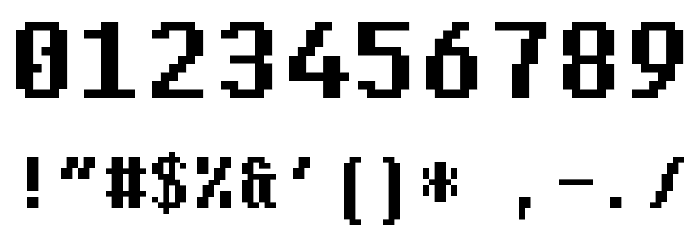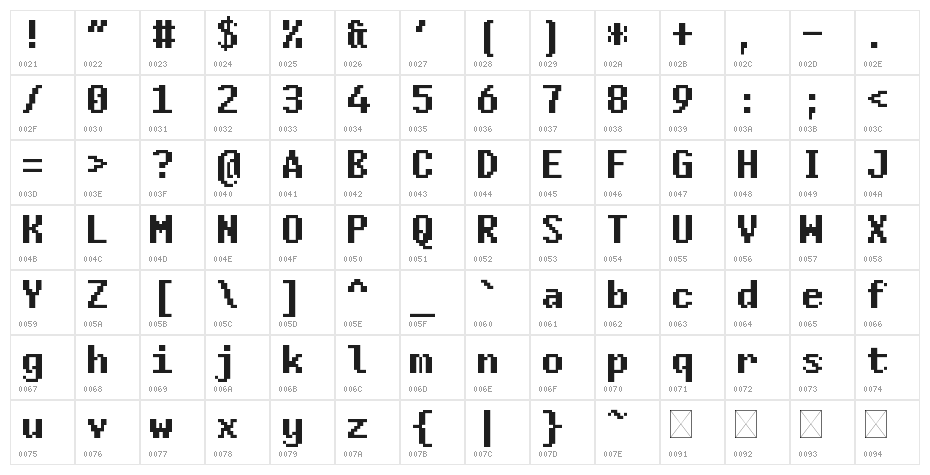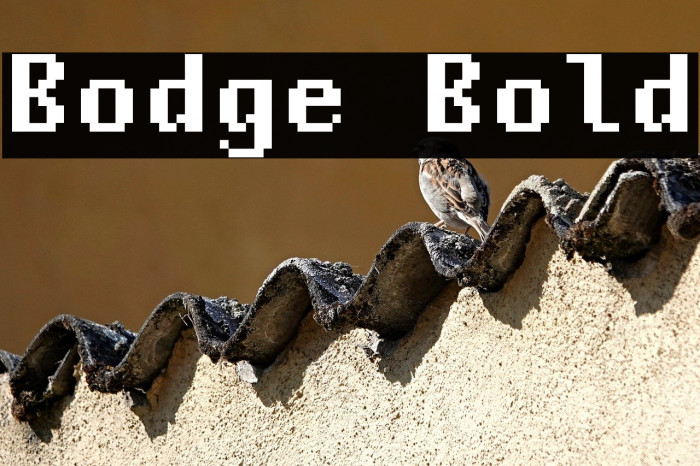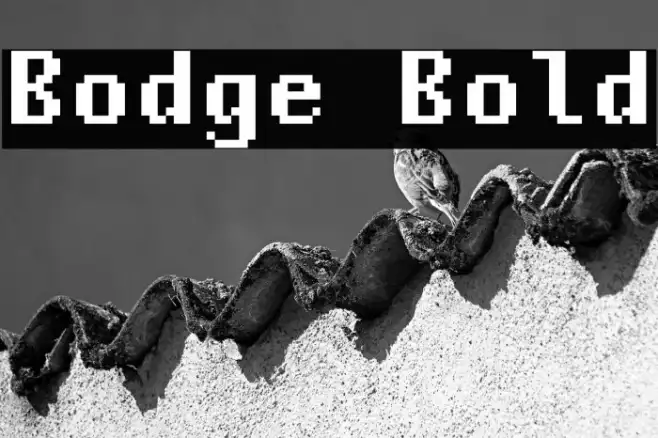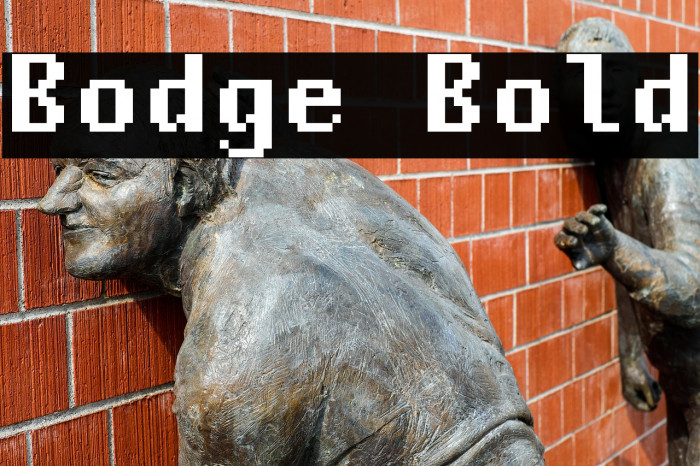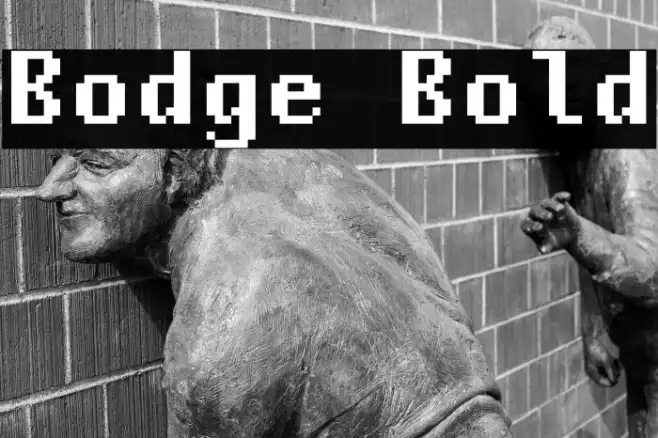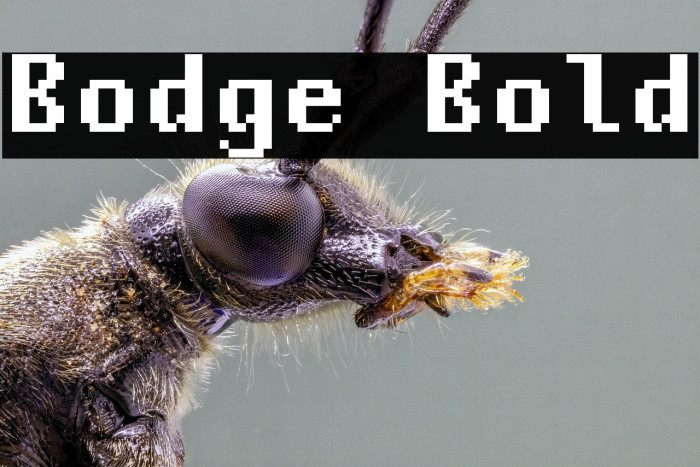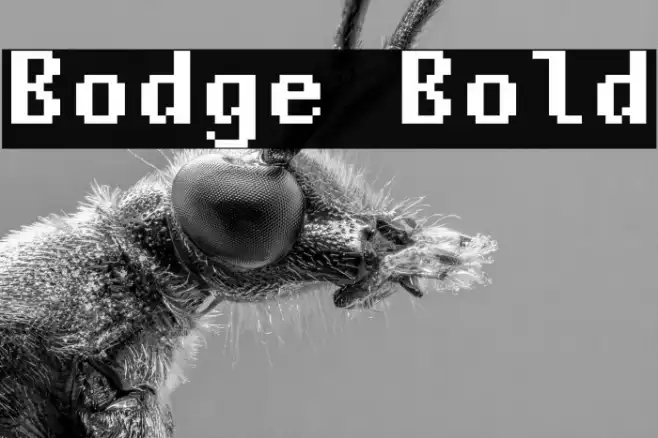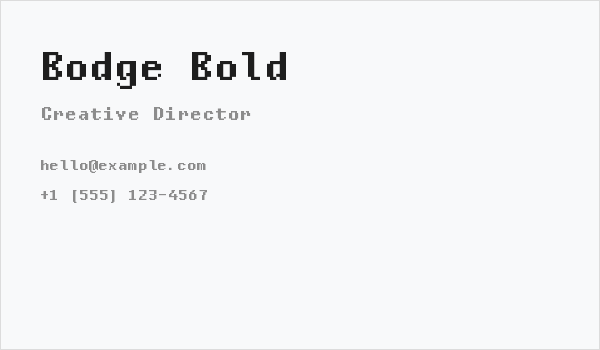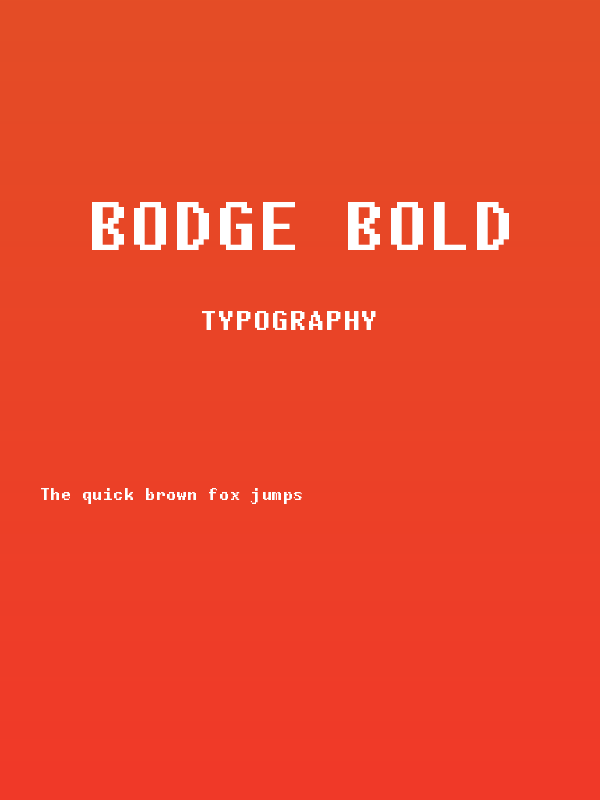
Bodge Bold Font
Bodge Bold Description
This font features a bold, pixelated style reminiscent of early digital displays and retro video games. The characters are blocky and geometric, with a consistent stroke width that gives it a uniform appearance. The uppercase and lowercase letters maintain a similar height, enhancing its compact and cohesive look. Numbers and special characters follow the same design principles, ensuring a harmonious overall aesthetic. This font's distinct style makes it ideal for projects that aim to evoke nostalgia or a digital, tech-inspired theme.
| Proposed Projects | Ideal for retro video game designs, digital art projects, tech-themed posters, and any creative work that seeks a nostalgic or digital look. |